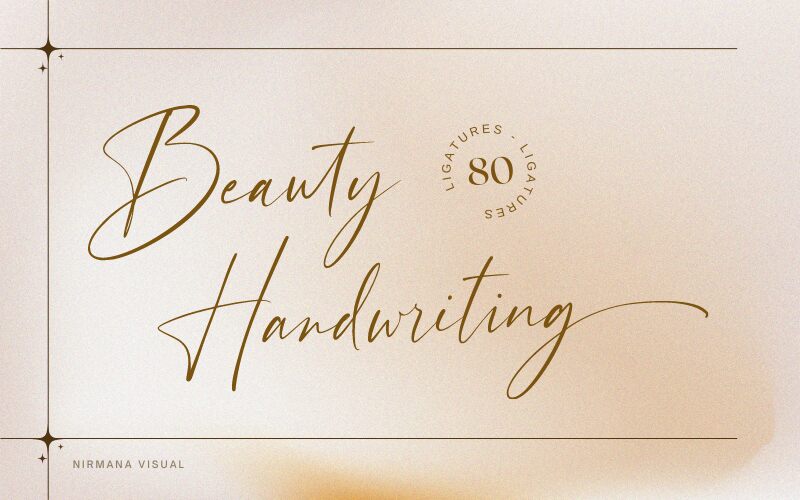
Beauty Handwriting is a graceful and delicate handwritten font designed by Nirmana Visual. Its light weight adds an airy feel to any project, while the flowing strokes of the script style exude elegance and sophistication. Perfect for wedding invitations, romantic greeting cards, or whimsical branding projects, this font brings a touch of charm to any design. Beauty Handwriting's playful nature also makes it suitable for children's book illustrations and playful branding projects that need a touch of personality. Whether you're looking to add a touch of romance or fun to your designs, Beauty Handwriting has got you covered!
Beauty Handwriting by Nirmana Visual,
Beauty Handwriting